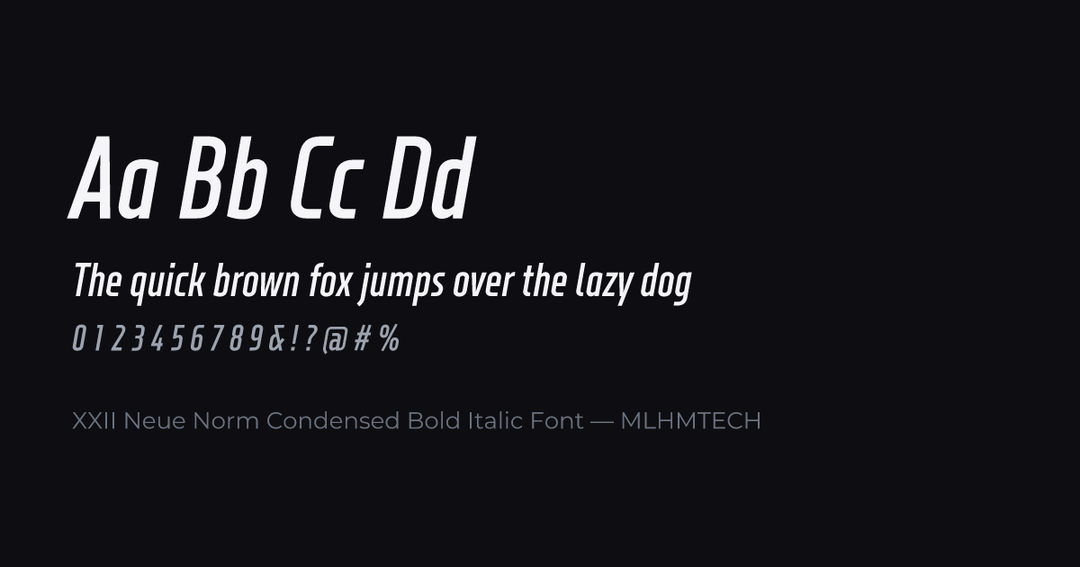
XXII Neue Norm Condensed Bold Italic Font
A condensed bold italic sans-serif font that adds dynamic energy to any design. Ideal for headlines, posters, and video titles.
XXII Neue Norm Condensed Bold Italic is a striking typeface that combines a narrow, space-saving design with a bold, expressive weight and an italic slant. Its condensed structure makes it perfect for impactful headlines, posters, and titles where you need to make a statement without taking up too much horizontal space.
The italic angle adds a sense of motion and urgency, making it a great choice for video editing projects, social media graphics, and branding that requires a modern, edgy feel. The font's clean lines and high legibility ensure it performs well both on screen and in print.